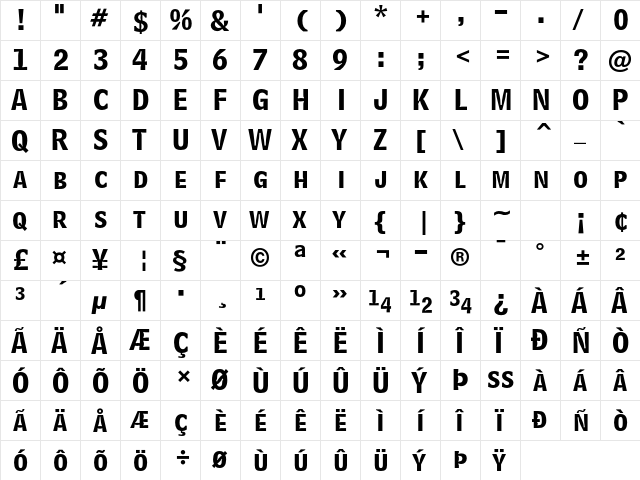
Bell Centennial Std Bold Listing
| Designer | Matthew Carter |
Design Context for Bell Centennial Std Typeface
Bell Centennial Std offers clean, dependable letterforms without strong stylistic allegiance, making it a practical choice for designers who need flexibility. The heavy weight commands attention and anchors typographic hierarchies.